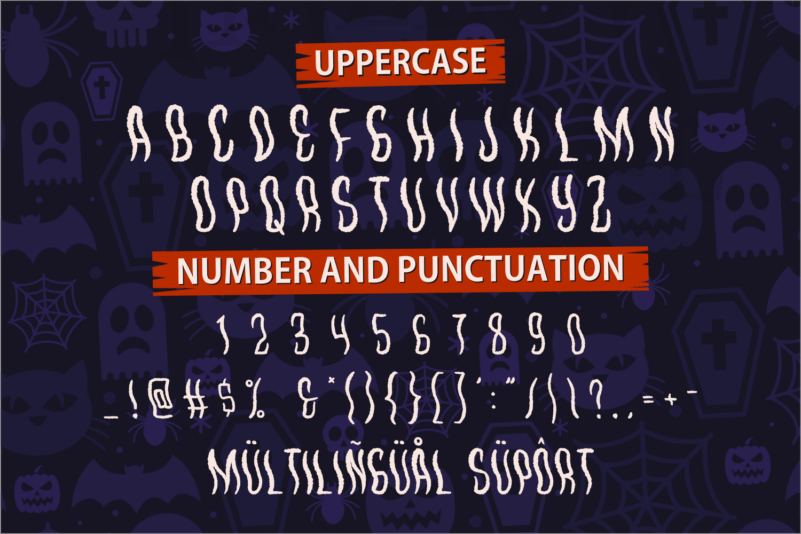
Waves Killer Font
Waves Killer Font is a Hallowen Handwritten font that will make your designs look spooky, chill, horror, and playful. It is a great font for events, Halloween Project, signature, album covers, logos, magazines, advertisements, Crafting Idea but it also works great for other projects. Add it to your fonts library, and it will enhance your creativity!